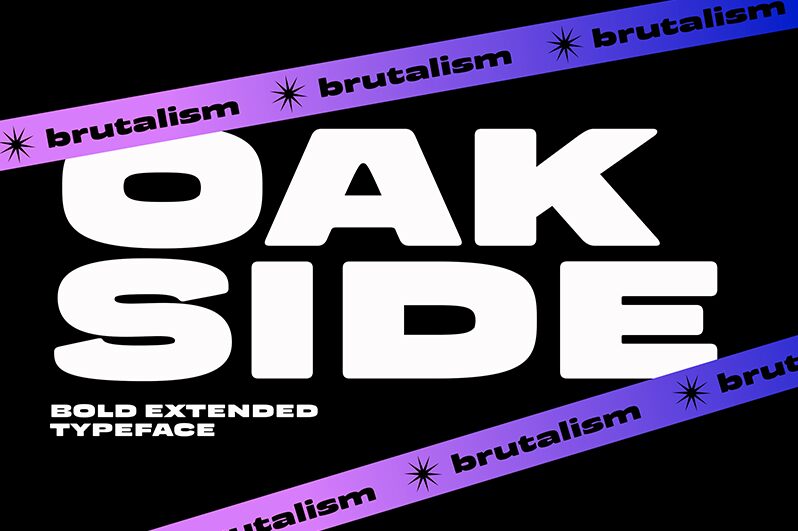
Oakside Typeface Regular
Oakside font by Get Studio is a modern display font that’s inspired by retro typography. Its rounded clean letters have no serifs and can be described as strong and motivated. You can also see the label “sans serif” attached to it, in addition to characteristics such as bold weight, geometric structure, and expanded width.
The free sans serif font fits logo design, magazine covers/headlines, labels/packaging/posters of both printable or digital form. Because it’s so versatile – in terms of style anyway – Oakside can appeal to audiences of nearly any age regardless of profession and interests!